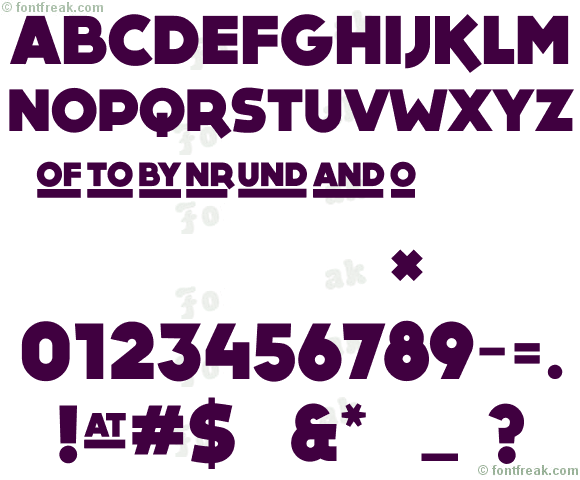
DOCK11 Heavy
Introducing the DOCK11 Heavy font, designed by Lukas Bischoff in 2011, this font exemplifies the bold and striking characteristics of a display typeface. As a sans-serif font, DOCK11 Heavy boasts thick, uniform strokes that exude confidence and modernity, making it an excellent choice for a variety of design projects. The heavy weight provides a strong visual impact, while the clean lines and minimal contrast ensure legibility even at larger sizes.
Visually, DOCK11 Heavy is characterized by its substantial stroke weight and generous letter spacing, contributing to its bold presence. The absence of decorative elements allows it to maintain a contemporary aesthetic, making it versatile for numerous applications. This font stands out in environments where clarity and impact are paramount, such as in branding materials, corporate identities, and promotional graphics.
The best use cases for the DOCK11 Heavy font include eye-catching movie posters that require a strong title presence, trendy restaurant menus that aim to convey a modern vibe, and impactful website headings that grab attention instantly. Additionally, it works well for product packaging, where bold typography can enhance brand visibility and recognition. The target audience for this font includes graphic designers looking for a reliable display typeface, small business owners eager to create memorable branding, and content creators who want to elevate their visual communications.
What sets the DOCK11 Heavy font apart from others is its ability to balance boldness with simplicity. This font's striking appearance makes it a go-to choice for anyone seeking to make a strong statement without overwhelming the viewer. For those interested in exploring its potential, the DOCK11 Heavy font free download offers an accessible opportunity to elevate your design projects.